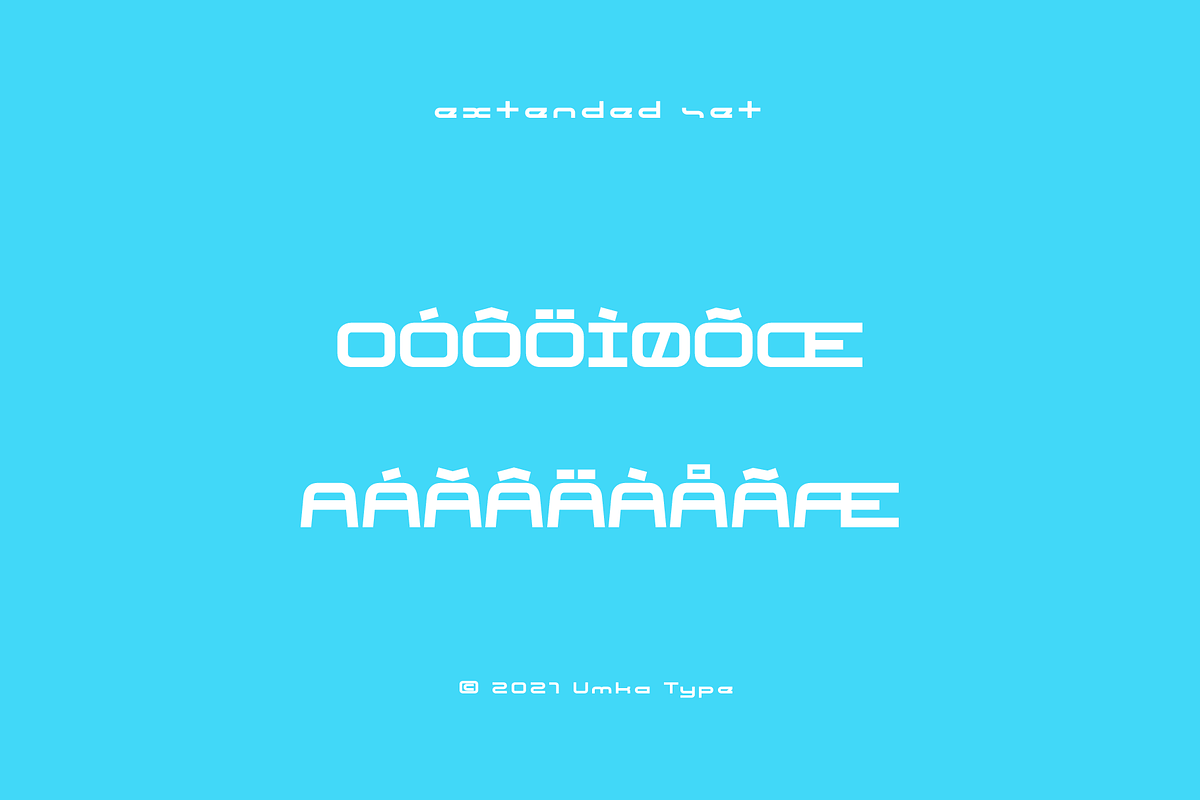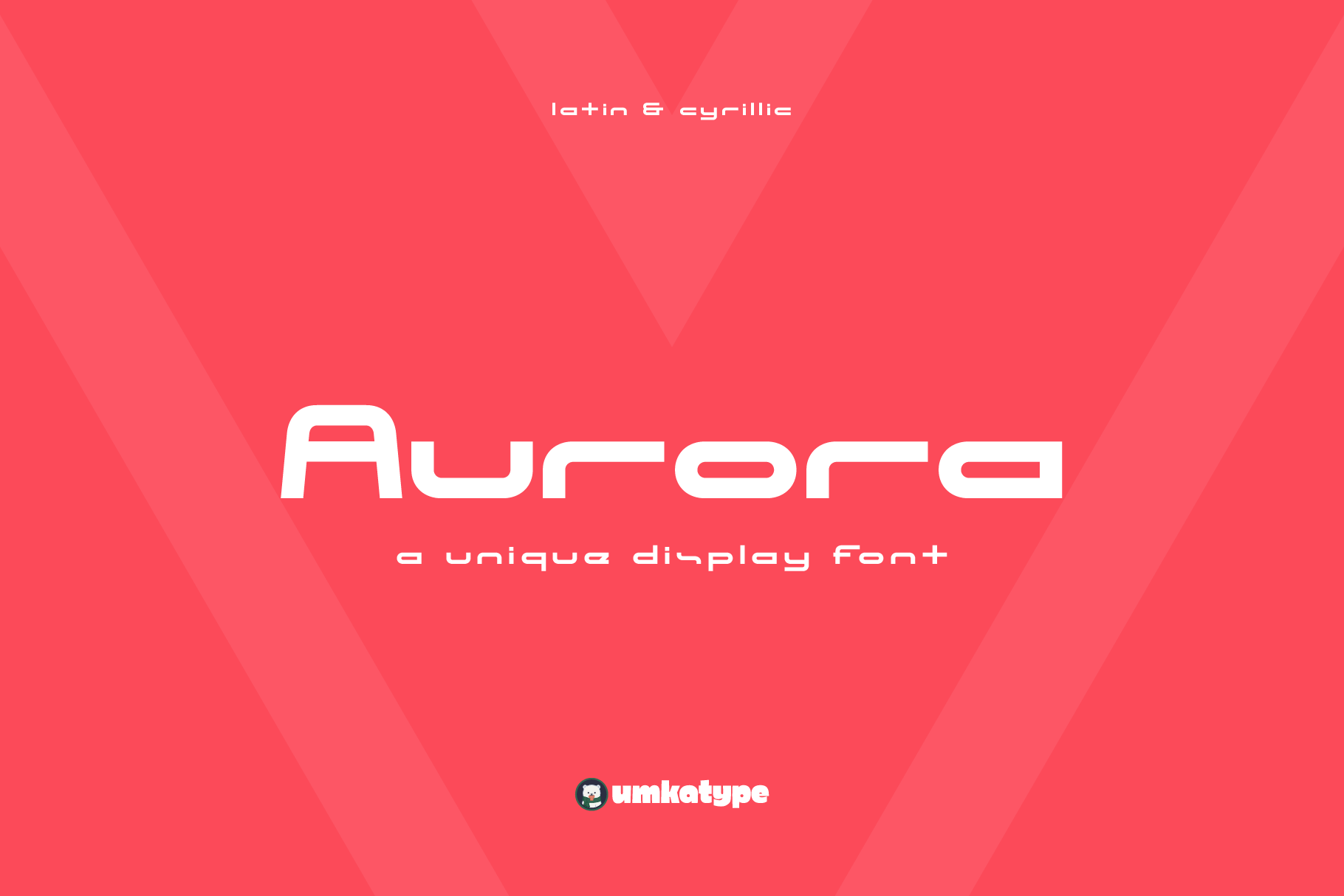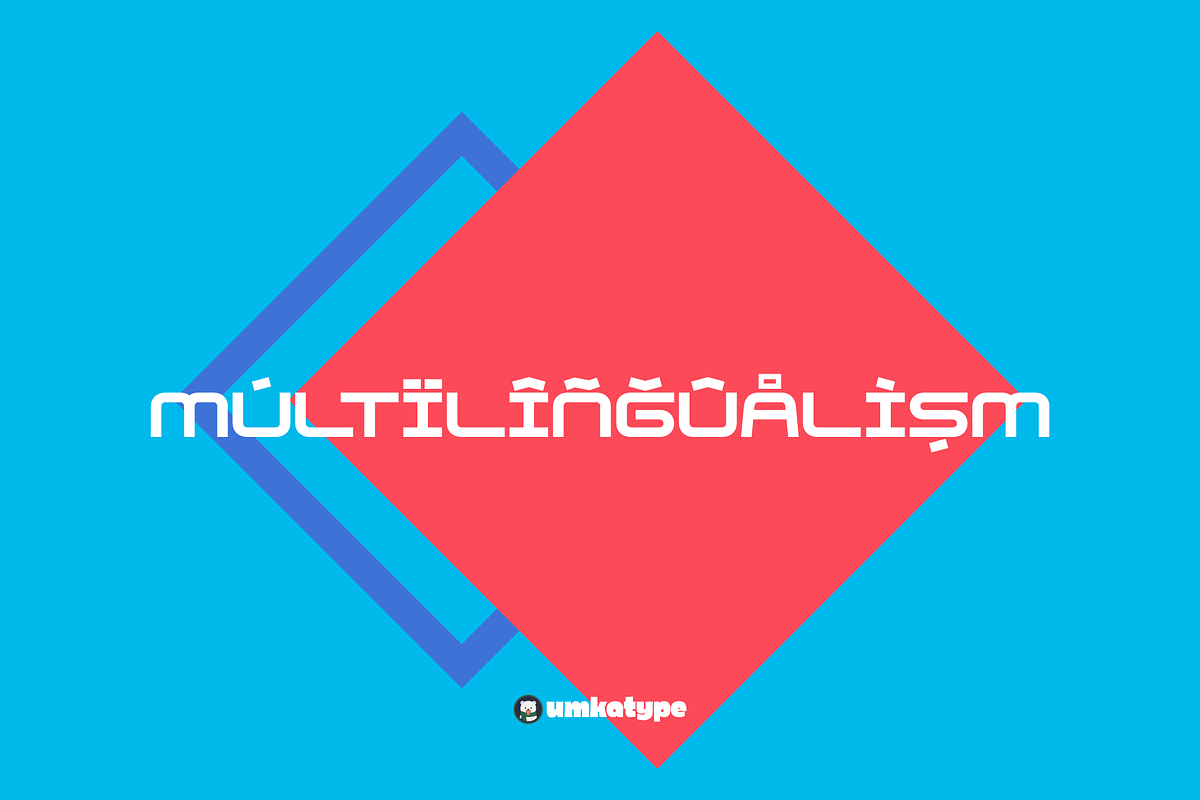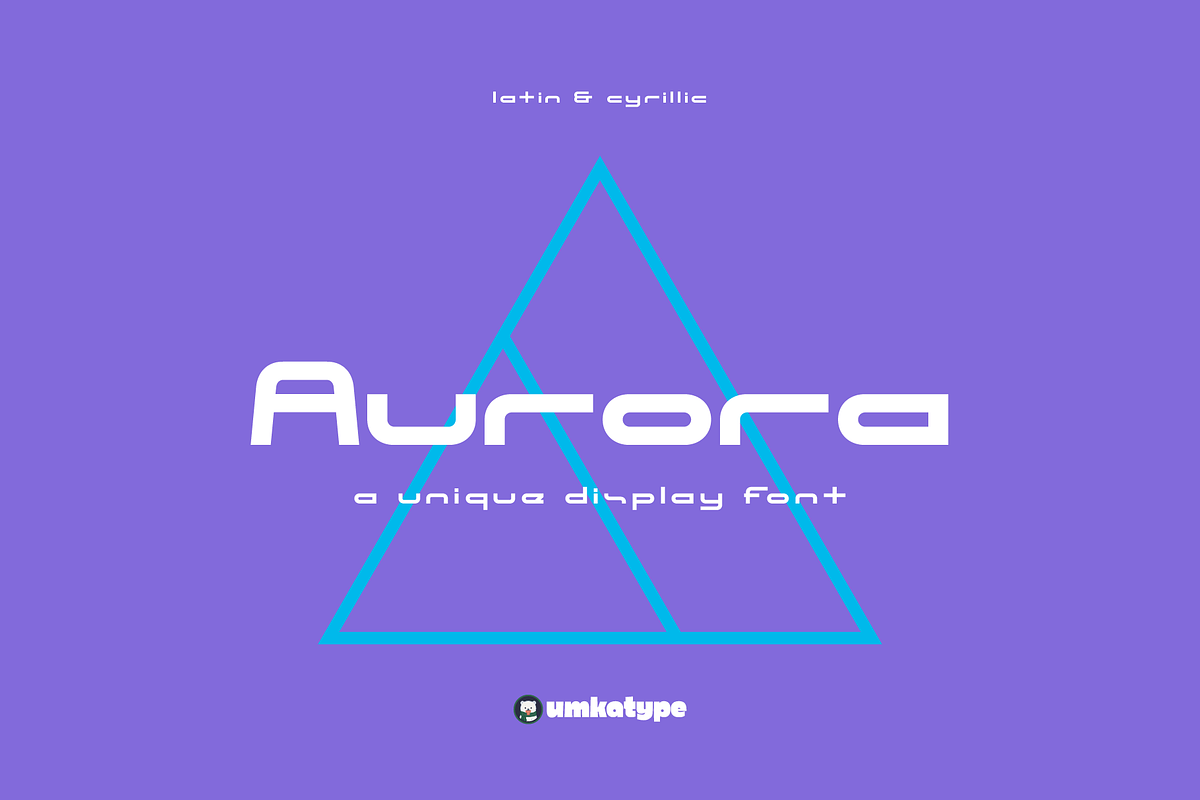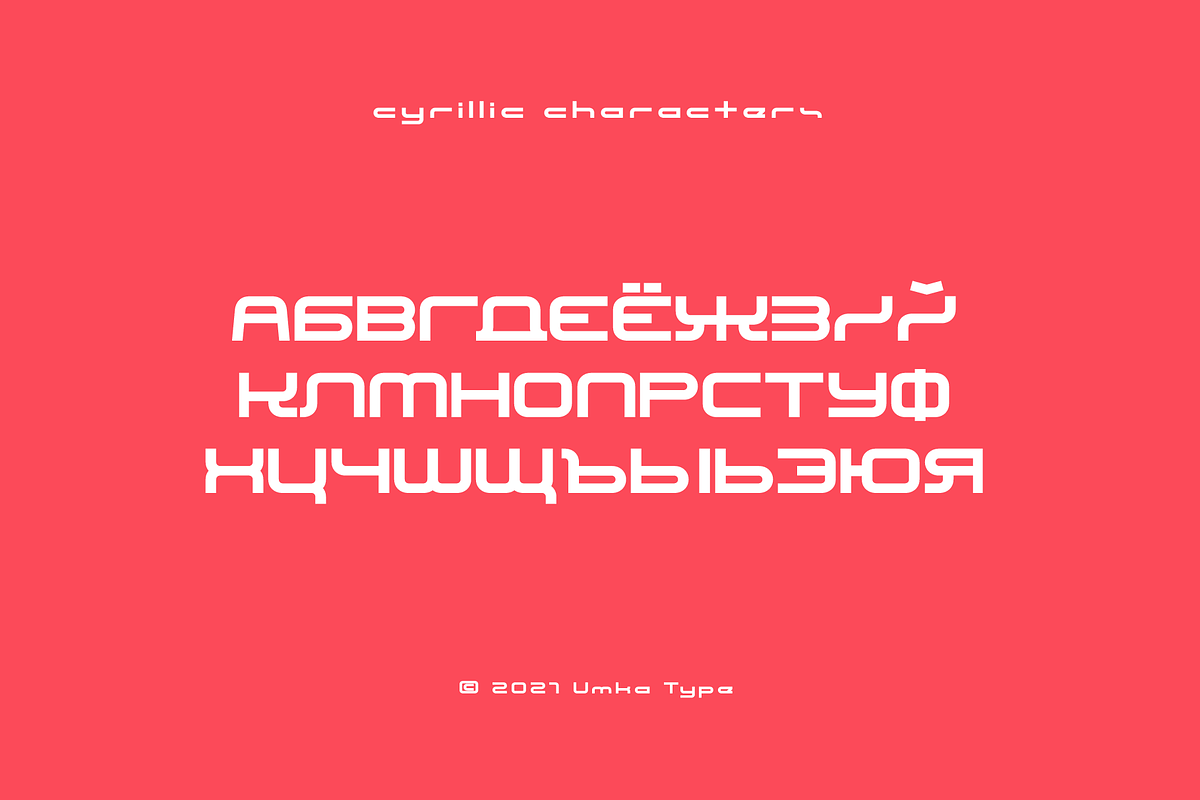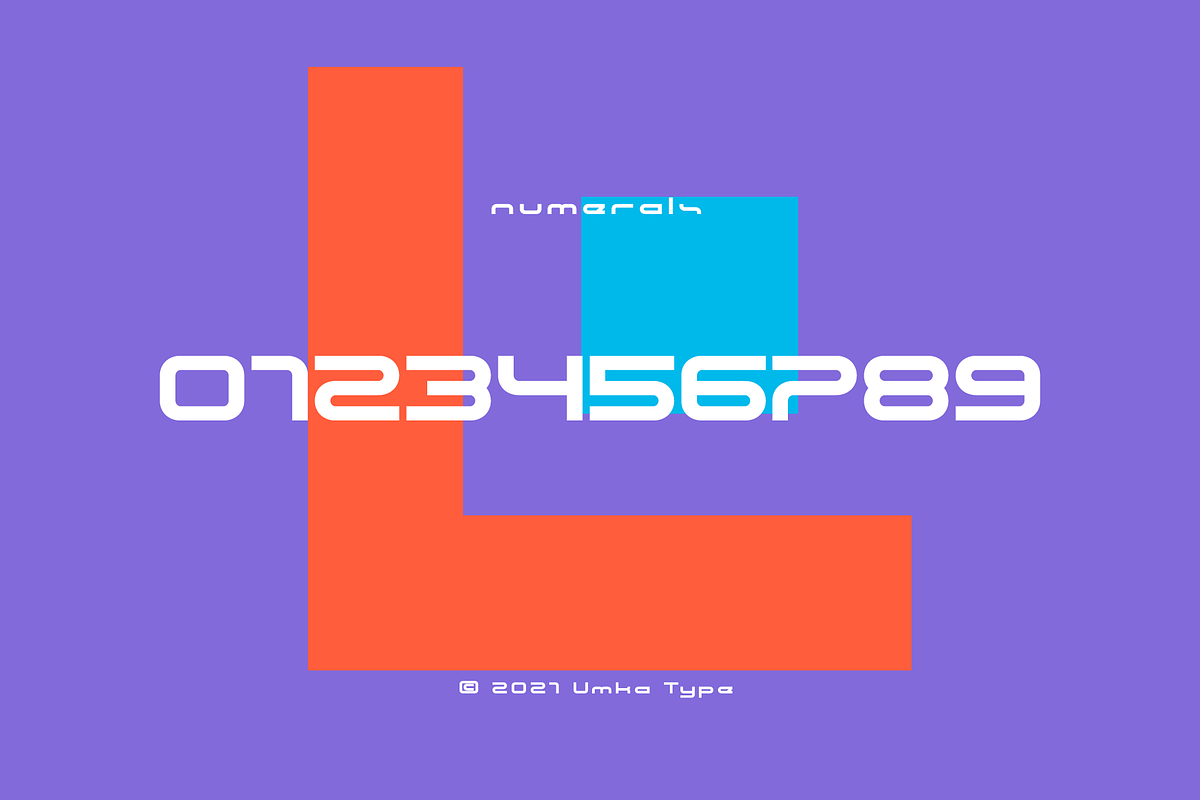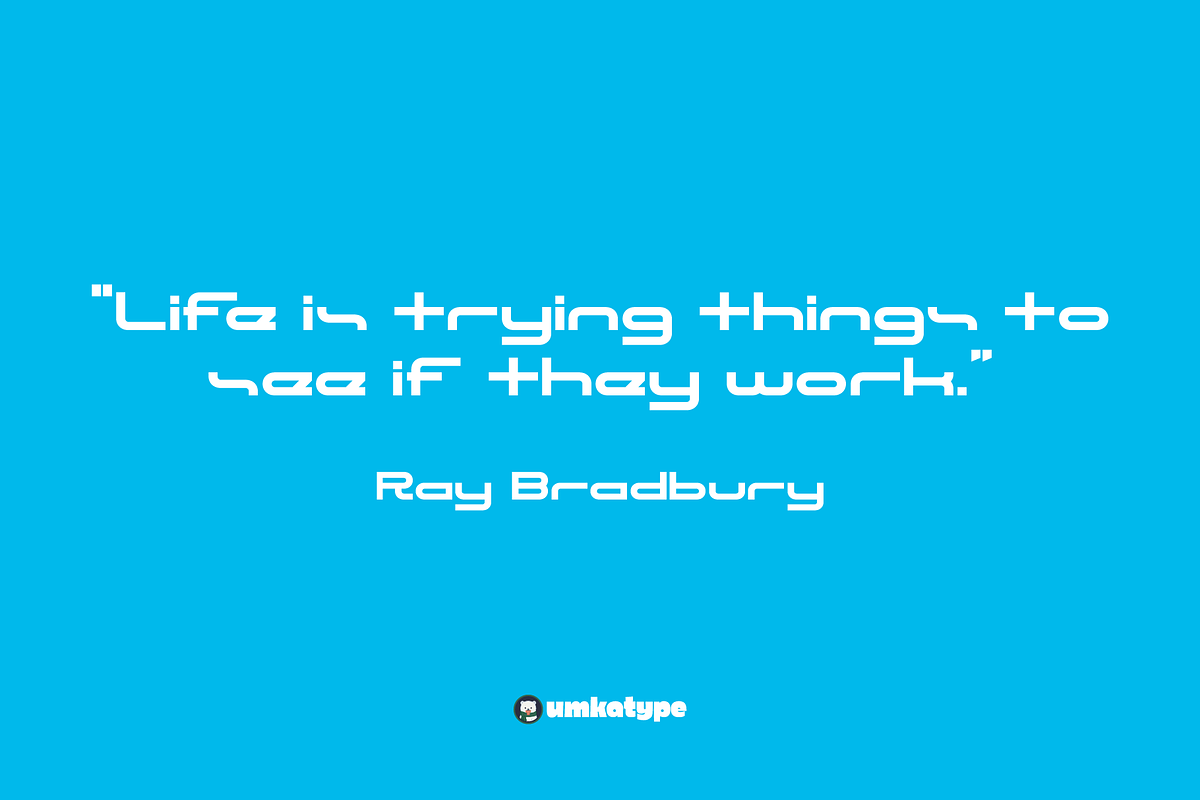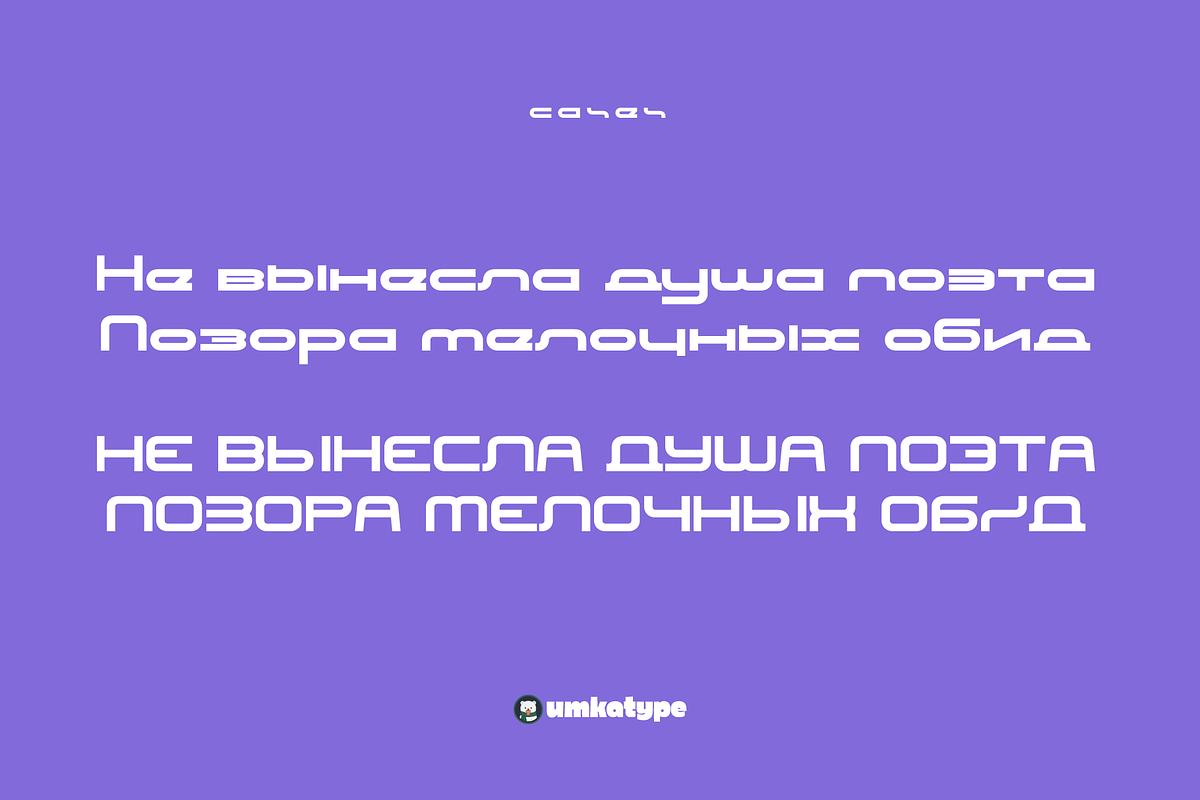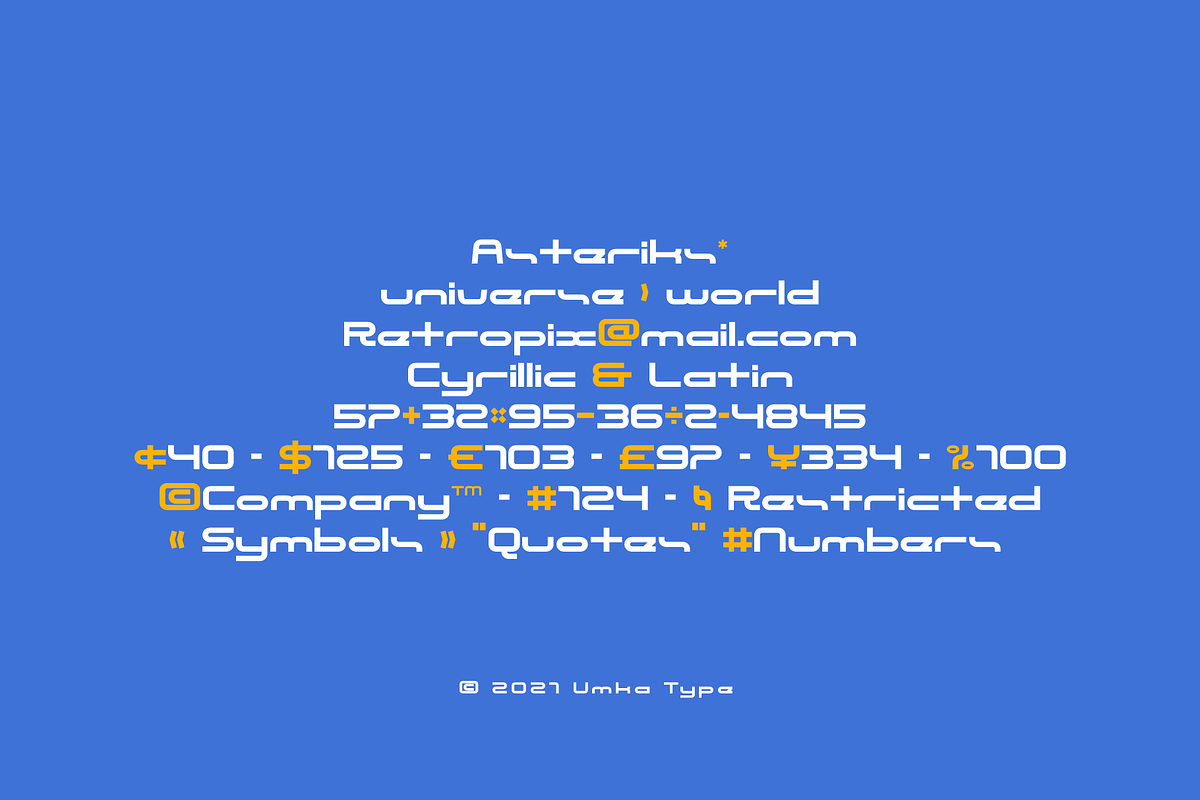
Aurora Display Font
Aurora - A Display Font
- Aurora is a carefully crafted font.
- Multilingual: It has Extended Latin and Extended Cyrillic letters.
Aurora created for posters, web design, branding and social media works.